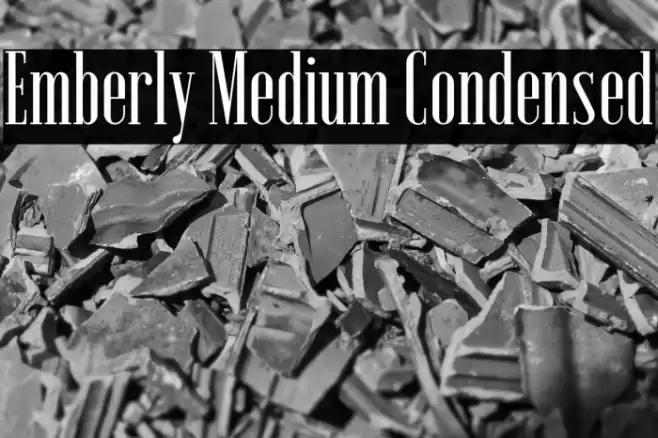
Emberly Medium Condensed Font
Emberly Medium Condensed Description
This font features a condensed and elegant style with a modern twist. The uppercase letters are tall and slender, exhibiting a refined and sophisticated appearance. The lowercase letters maintain a consistent height, complementing the uppercase with a balanced and cohesive look. The numerals are distinct and clear, ensuring readability. Special characters are designed with a touch of flair, adding to the overall decorative nature of the font. The strokes are moderately thick, providing a medium contrast that enhances the font's legibility while maintaining its stylish aesthetic.
A modern, condensed serif font with medium contrast and elegant styling from Serif fonts.